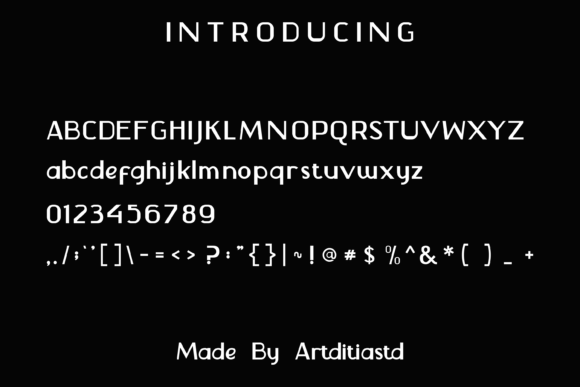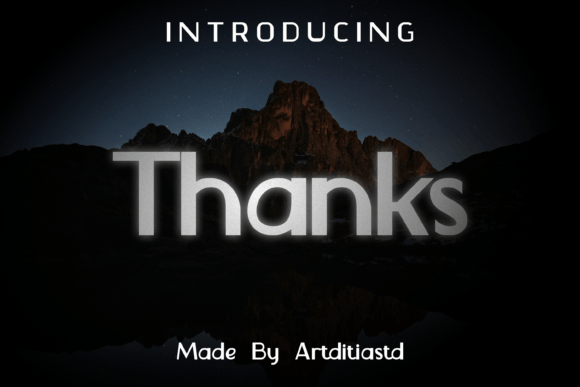
Discover the Power of Gergeta Font: Elevate Your Designs with Confidence
In the world of typography, a font can make or break a design. It’s the foundation upon which your creative vision is built, and choosing the right one can be a daunting task. However, if you’re looking for a bold and assertive sans serif font that can elevate any creation, look no further than Gergeta Font. In this article, we’ll explore the features, benefits, and uses of Gergeta, and why it’s an incredible asset to your font library.
The Gergeta Advantage: Bold and Assertive
Gergeta Font is a sans serif font that exudes confidence and boldness. Its clean lines, precise curves, and sturdy structure make it perfect for designs that require a strong visual impact. Whether you’re working on a logo, headline, or body text, Gergeta’s assertive presence will grab attention and command respect. Its bold personality is versatile enough to work well across various industries and mediums, from digital platforms to print materials.
Key Features of Gergeta Font
- Bold and Assertive: Gergeta’s robust design makes it perfect for creating eye-catching headlines, titles, and emphasis text.
- Sans Serif: The clean and minimalist sans serif design ensures excellent legibility, even at smaller font sizes.
- Versatile: Gergeta’s neutral tone and adaptable nature make it suitable for a wide range of design applications, from corporate branding to creative projects.
- Highly Legible: The font’s carefully crafted letterforms ensure optimal readability, reducing eye strain and enhancing the overall user experience.
Why Choose Gergeta Font?
With so many fonts available, why should you choose Gergeta? Here are just a few compelling reasons:
- Elevate Your Designs: Gergeta’s bold and assertive personality can instantly elevate your designs, adding a level of sophistication and professionalism.
- Save Time: With Gergeta, you can create stunning designs quickly and efficiently, thanks to its exceptional legibility and versatility.
- Stand Out: In a sea of generic fonts, Gergeta’s unique character will help your designs stand out and leave a lasting impression.
Using Gergeta Font: Tips and Inspiration
Now that you’re familiar with Gergeta’s features and benefits, let’s explore some practical applications and design tips:
- Logo Design: Use Gergeta as a bold and assertive logo font, perfect for creating memorable brand identities.
- Headlines and Titles: Gergeta’s bold personality makes it ideal for headlines, titles, and emphasis text, adding visual impact to your designs.
- Body Text: While Gergeta is bold, it’s also highly legible, making it suitable for body text in articles, blog posts, and other written content.
In conclusion, Gergeta Font is a bold and assertive sans serif font that can elevate any design. Its versatility, legibility, and unique character make it an incredible asset to your font library. Whether you’re a designer, craftsperson, or simply a creative enthusiast, Gergeta is an excellent addition to your typography arsenal. So why wait? Discover the power of Gergeta Font and take your designs to the next level with confidence.